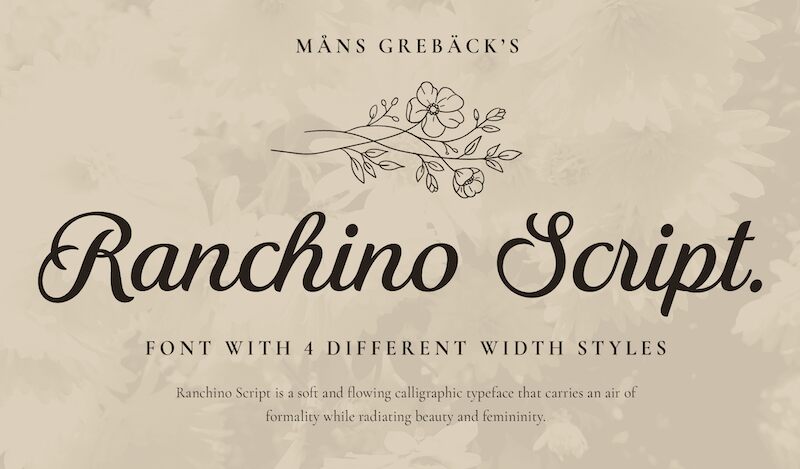
Ranchino Script's flowing character is one of care, precision, and the timeless beauty of calligraphy. Designed by Mans Greback, this calligraphic font exudes a sense of elegance and sophistication, its graceful strokes evoking a sense of artistry and refinement. The Ranchino Script font family seamlessly blends traditional calligraphic elements with a modern sensibility, creating a visually striking and versatile typeface.
Ranchino Script's versatility makes it an excellent choice for a wide range of design applications. Its elegant aesthetic lends itself beautifully to luxury branding, high-end editorial content, and sophisticated event invitations. The font's calligraphic flair also makes it a captivating option for wedding stationery, personal correspondence, and creative projects that require a touch of timeless charm.